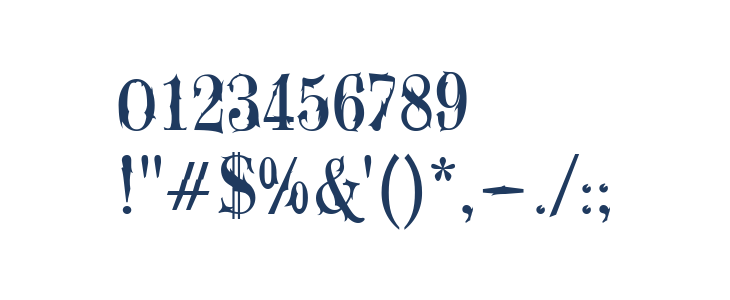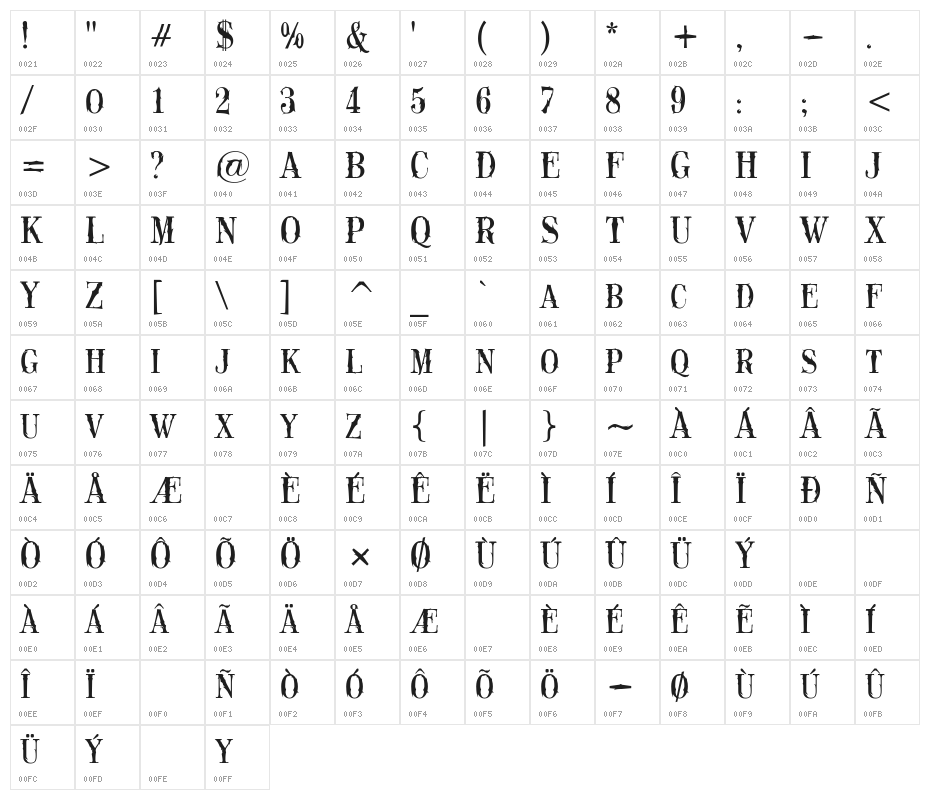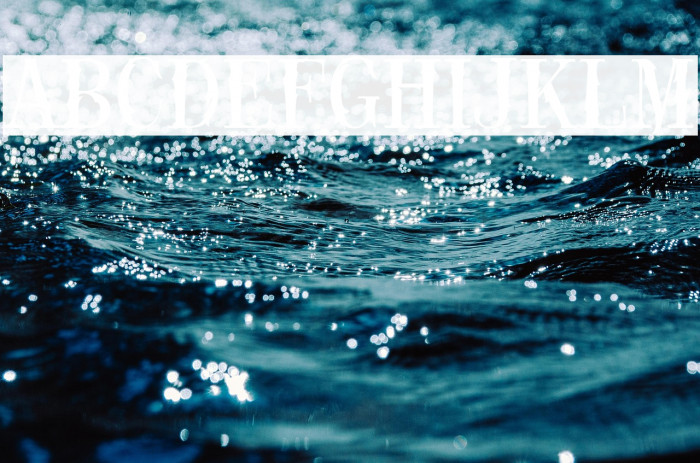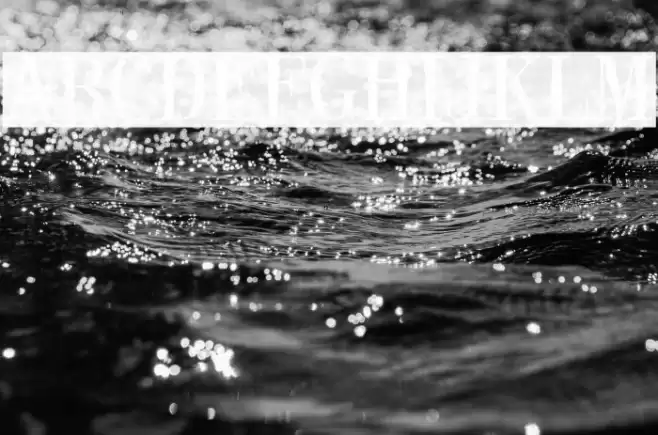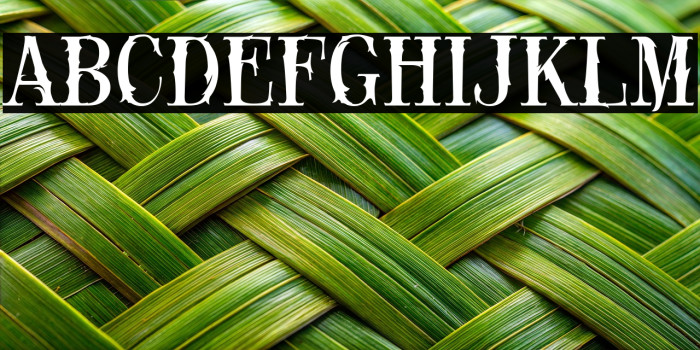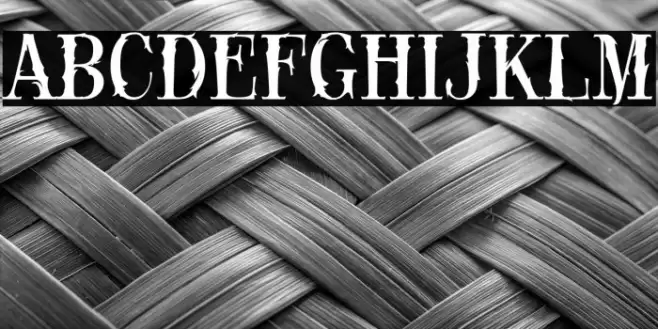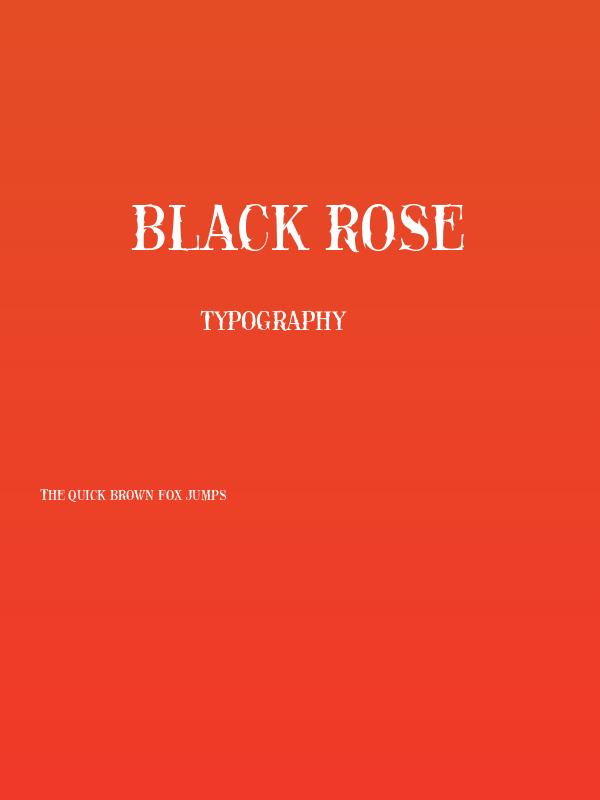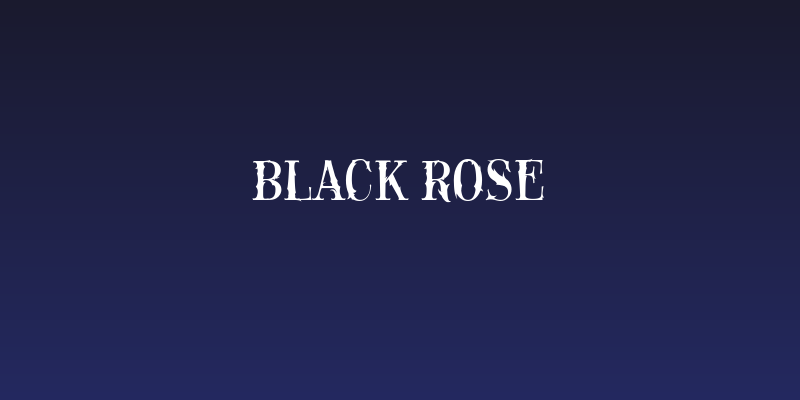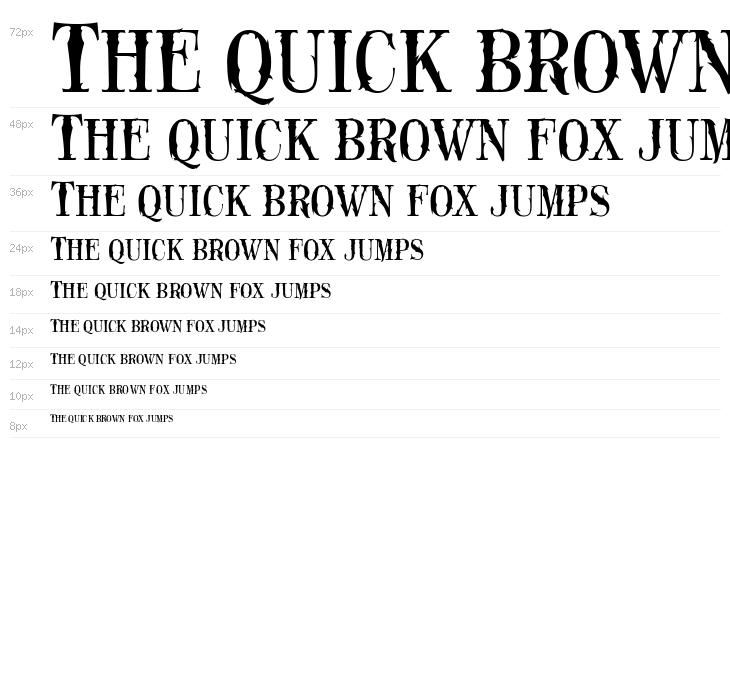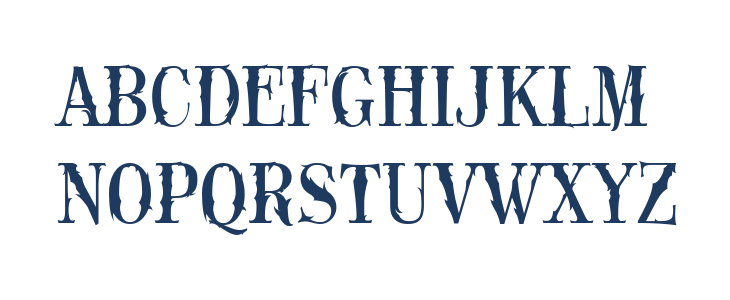
Black Rose Font
Black Rose Description
This font exhibits a bold and dramatic style, characterized by its rough, jagged edges and distressed appearance. The letters have a strong presence, with thick strokes that give a sense of weight and authority. The unique texture of the characters suggests a vintage or grunge aesthetic, making it ideal for designs that require a bold statement. The uppercase and lowercase letters maintain a consistent style, while the numerals and special characters complement the overall look with similar rugged features. This font is particularly suited for projects that aim to capture attention and convey a sense of edginess or rebellion.
| Overall Style | Vintage |
| Proposed Projects | Ideal for posters, album covers, branding for edgy products, or any design needing a bold statement. |